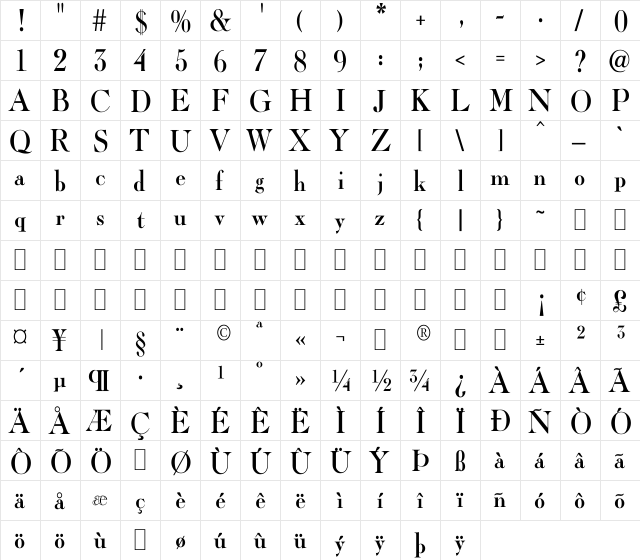
BD Engraved Black Normal
Design Context for BD Engraved Black Typeface
BD Engraved Black brings ornamental detail and strong personality to headlines and identities, where visual impact matters more than quiet functionality. Its bold stroke weight gives it real presence on the page.
Font Pairing: Pair with a clean neutral sans-serif for body copy to let BD Engraved Black's character lead without overwhelming the composition.
Pro Tip: Treat BD Engraved Black as the centrepiece of your typographic hierarchy. One strong heading set in a decorative face can carry an entire layout.